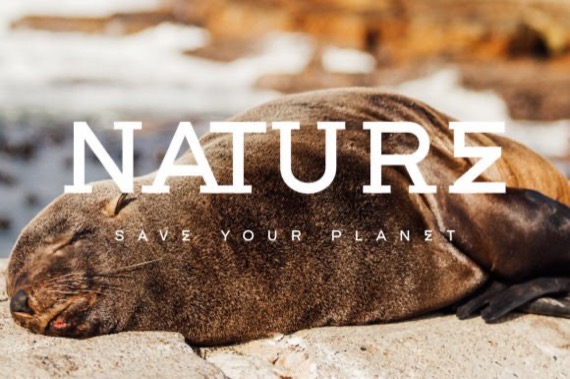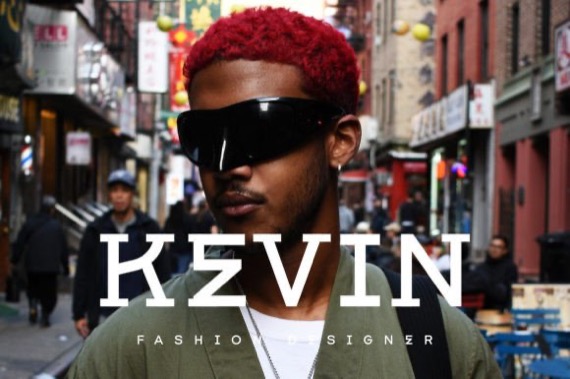
Getboreg is a bouncy and classy slab serif font that was created and released by FFeeaarr. Its characters tell a story that spans centuries, each curve and contour a reflection of the evolution of written communication. leaves an indelible mark that transcends mere letters and becomes a visual legacy.
Getboreg Display Serif Font
Designer, Publisher: FFeeaarr